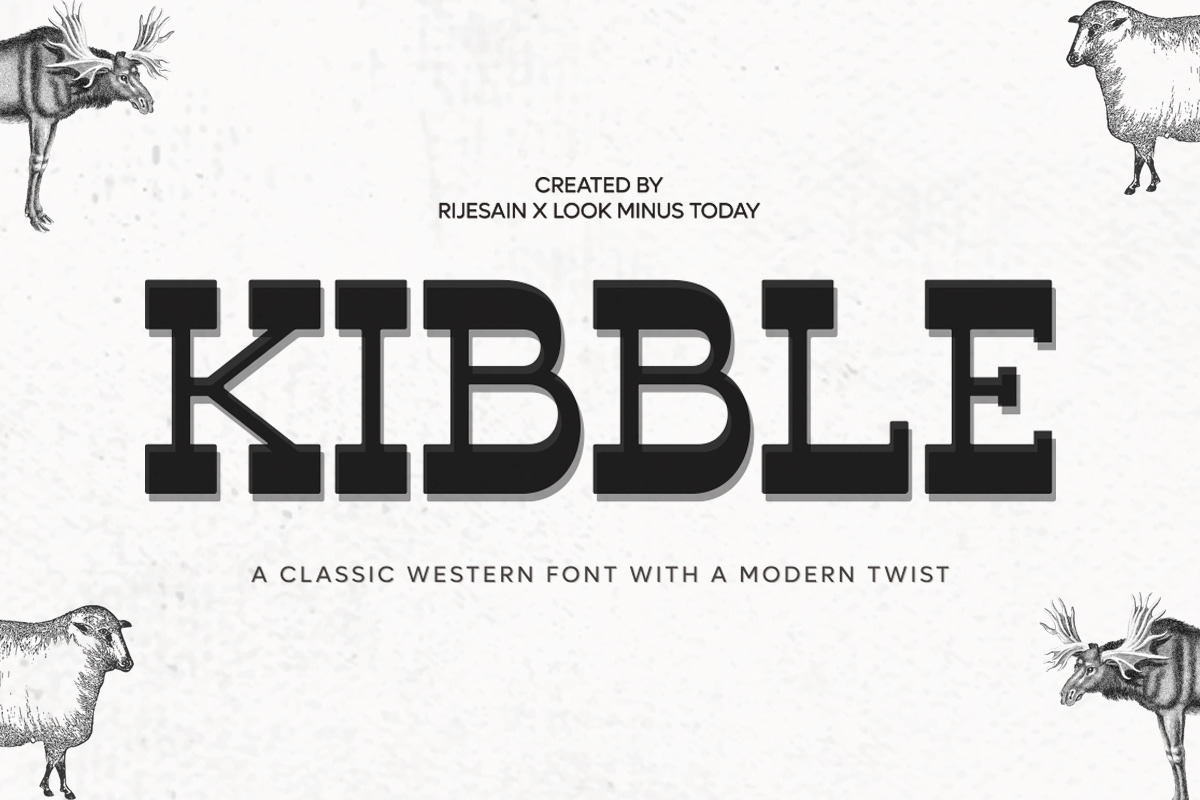
Kibble - Vintage Modern Font
Introducing Kibble - A Classic Western Font With A Modern Twist by Rijesain x Look minus today
Kibble a classic western font with a modern twist. inspired slab serif font with a modern twist, Its unique style combines classic design elements with contemporary aesthetics, making it perfect for a wide range of projects. With its clean lines and distinctive letterforms, Kibble is a versatile and eye-catching font that will make your designs stand out. Whether you're creating branding materials, advertising campaigns, or any other type of design, Kibble is a font that will help you achieve your creative vision.